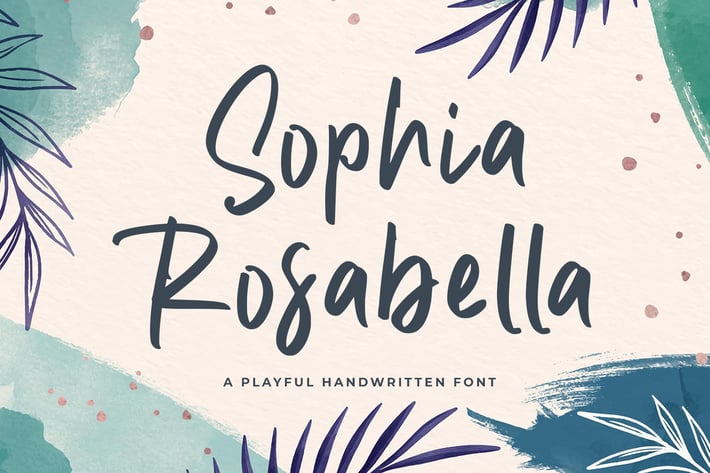
Sophia Rosabella - Elegant Handwritten Font
Sophia Rosabella is a handwritten signature script with a natural & stylish flow. This font has a multitude of natural-looking ligatures in its OpenType features - making the font look as close to natural handwriting as possible. This collection of scripts is perfect for personal branding.
Sophia Rosabella Font is perfect for many different projects such as logos & branding, invitation, stationery, wedding designs, social media posts, advertisements, product packaging, product designs, label, photography, watermark, special events, or anything.